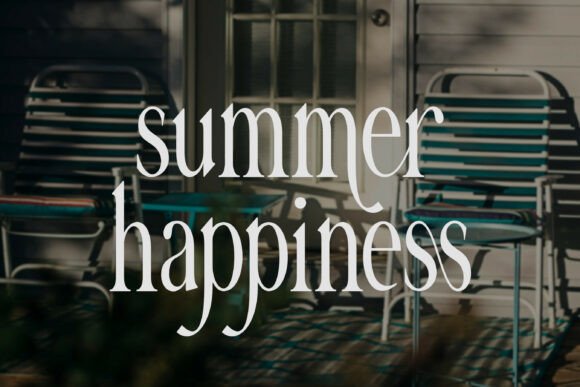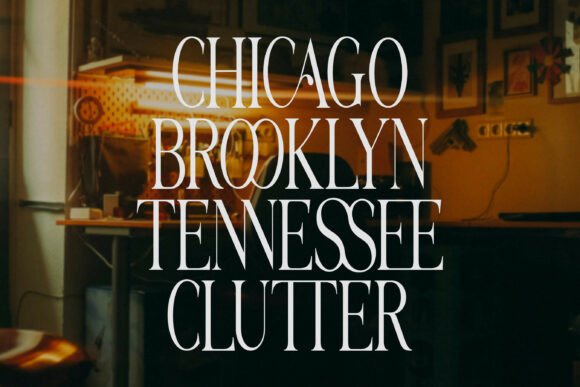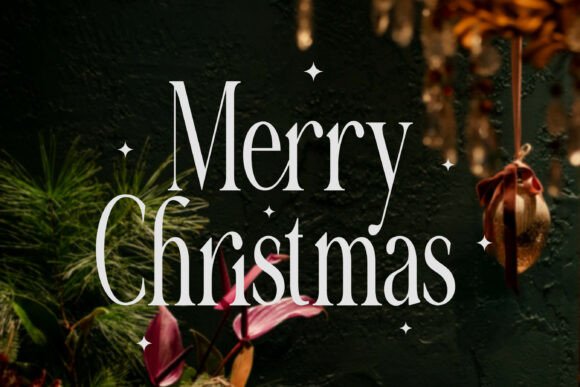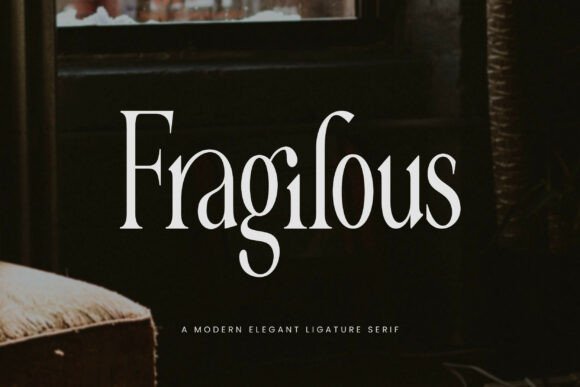
Introduction to Fragilous Font
Fragilous is a modern elegant ligature serif, blending timeless sophistication with contemporary flair.
Fragilous is a refined ligature serif designed for elevated aesthetics With graceful curves, elongated forms, and seamless ligatures, this typeface brings an air of delicate confidence to every layout.
Key Features of Fragilous Font
Why Choose Fragilous Font?